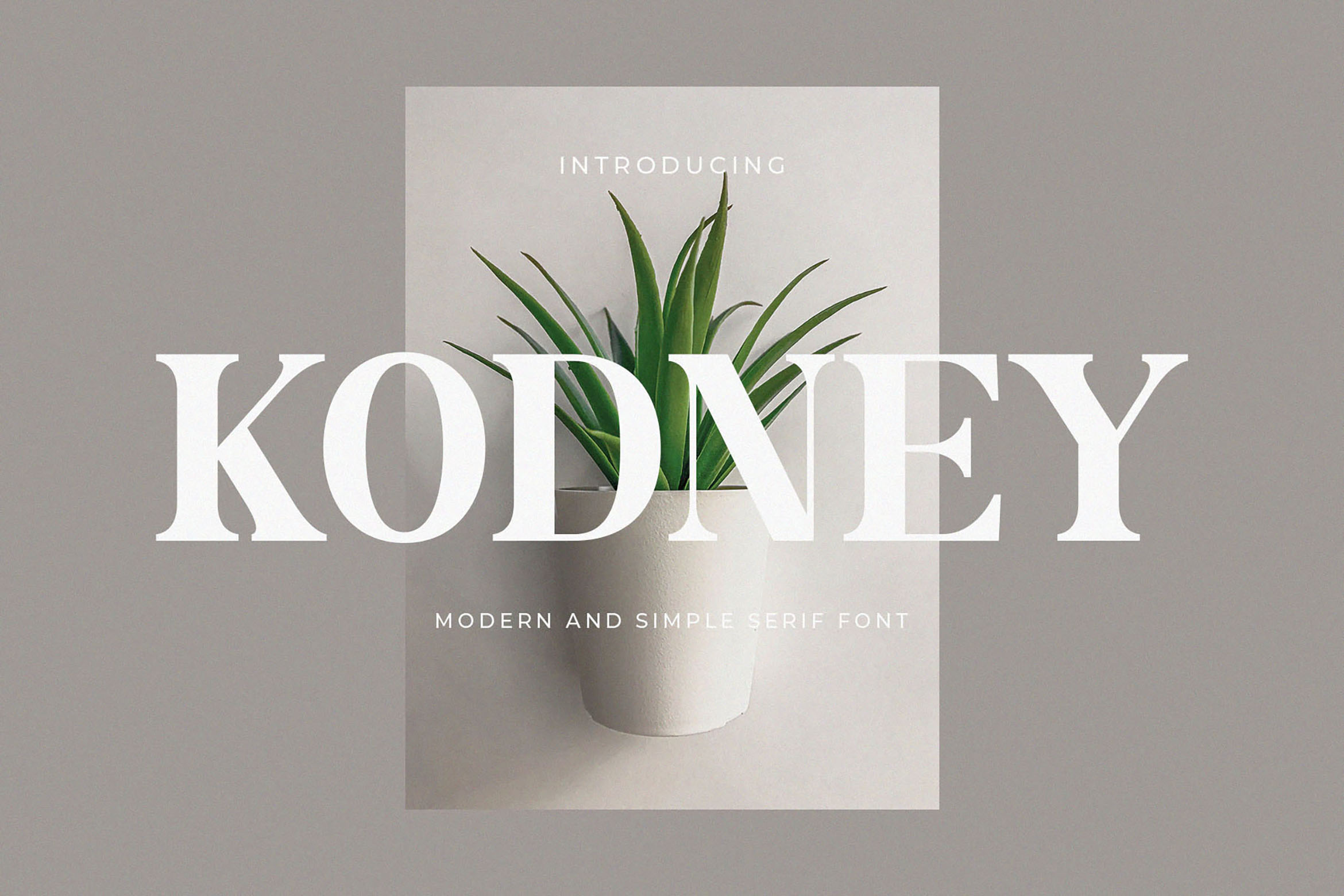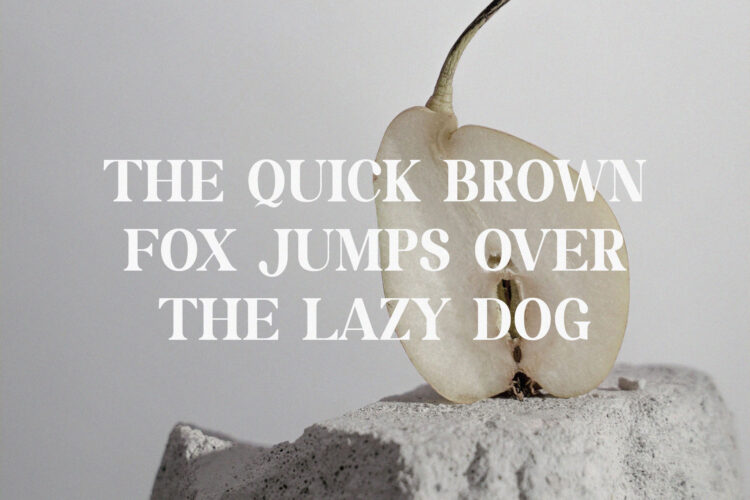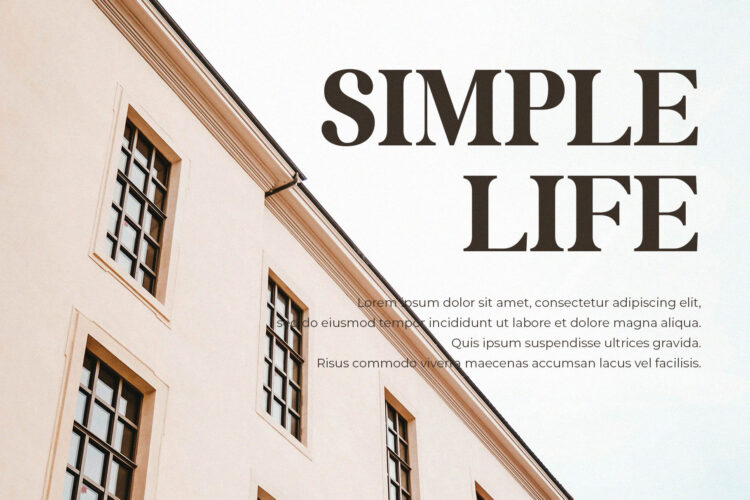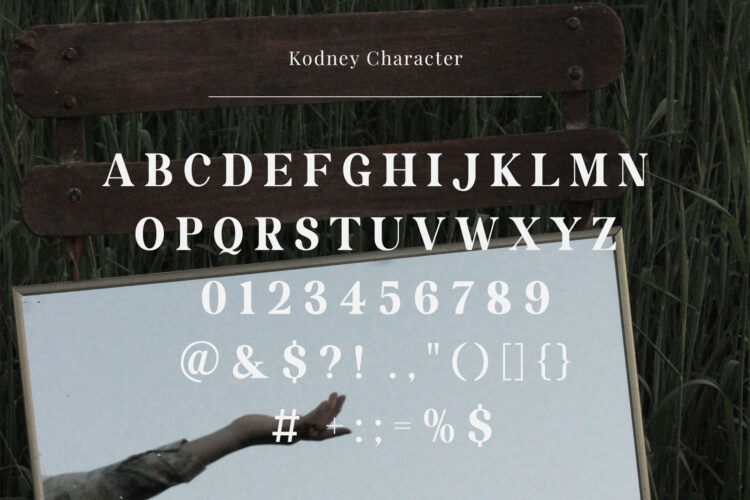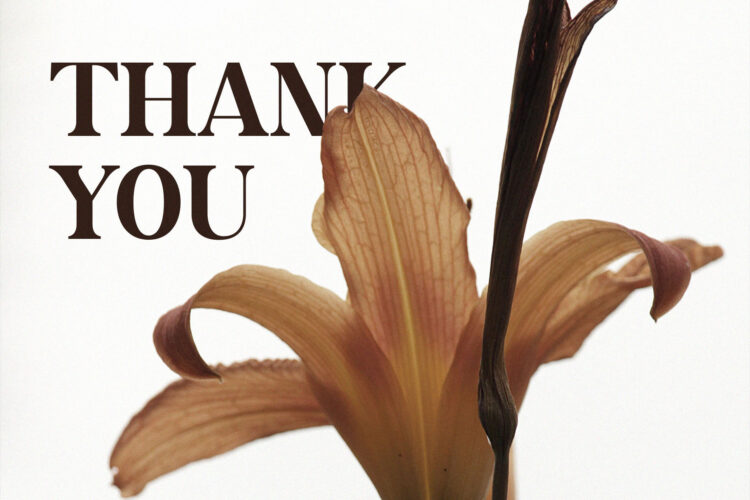
Introducing our new Kodney, modern serif font with elegant style this is perfect for branding, logos, invitation, magazines, product packaging and more.
Kodney – Modern Serif Font